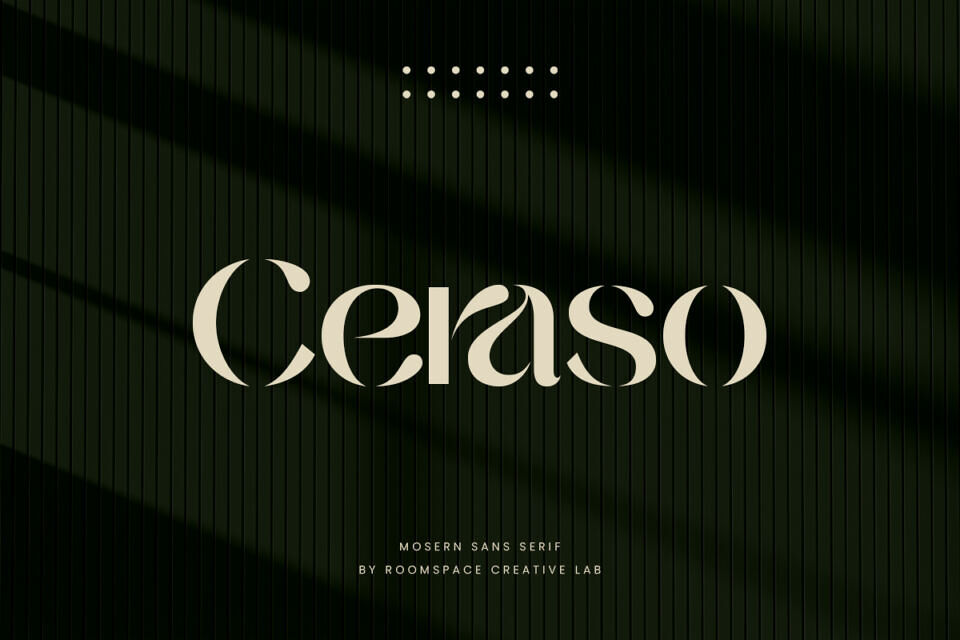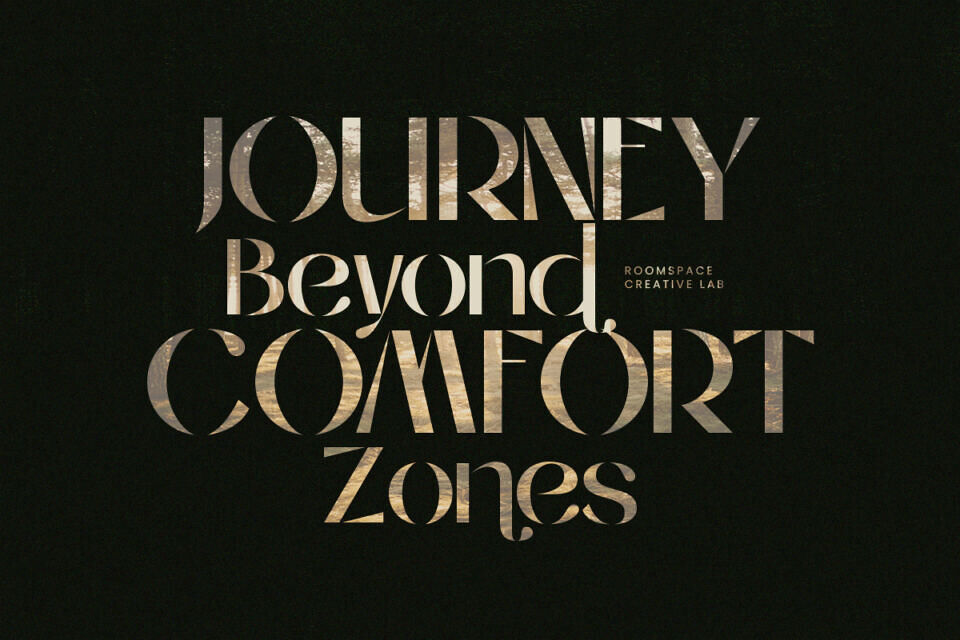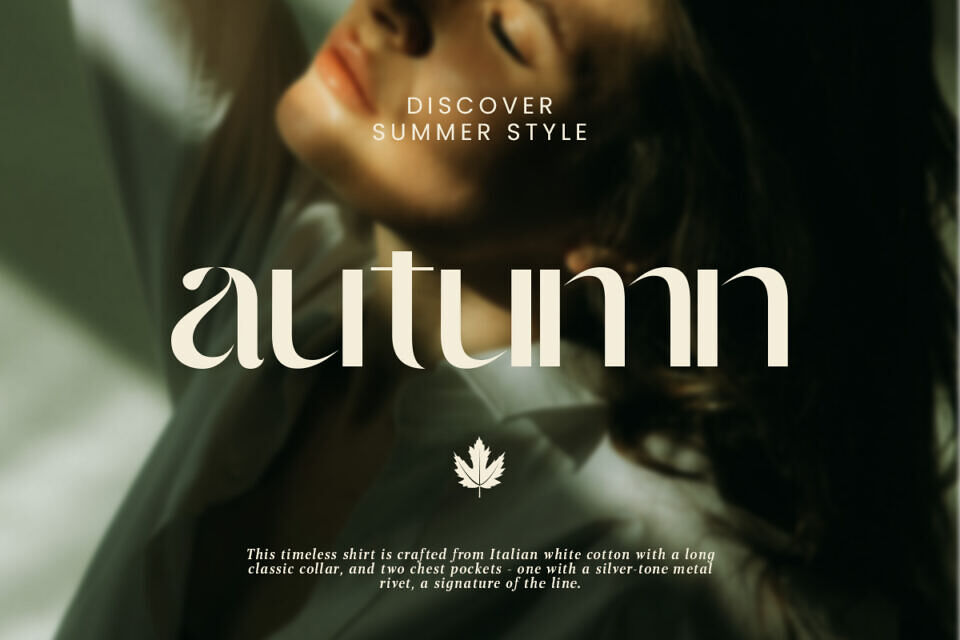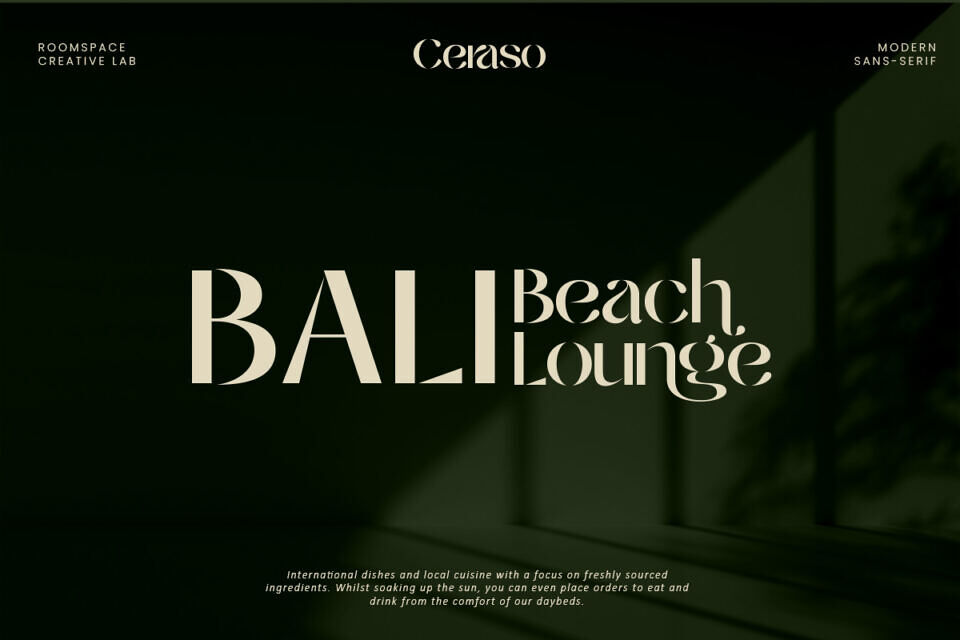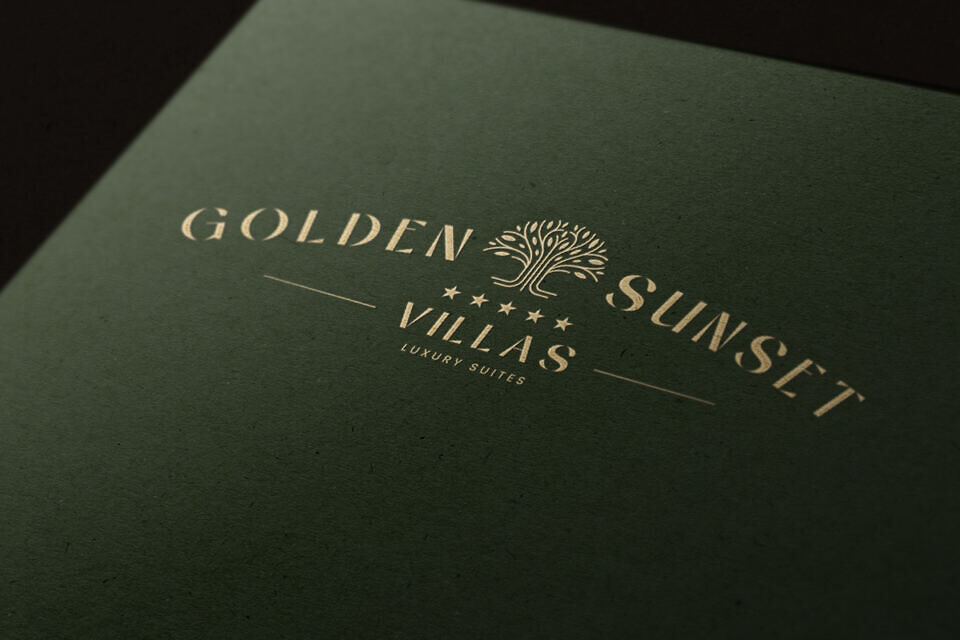
Ceraso Font
Ceraso is a modern sans serif font that blends contemporary design with artistic geometry. Every curve and cut gives this typeface a refined, stylish personality—perfect for designers seeking something modern yet distinctive. Its elegant shapes create a bold visual impact that feels sophisticated without being overstated.
Crafted with precision and balance, Ceraso features smooth letterforms, clean contrast, and harmonious kerning that ensures readability across various scales. Its minimalist structure allows it to adapt beautifully in both display and text uses.
Ideal for branding, editorial layouts, fashion labels, and creative packaging, Ceraso delivers a timeless charm with a modern twist. It’s perfect for brands that value simplicity, luxury, and visual distinction.